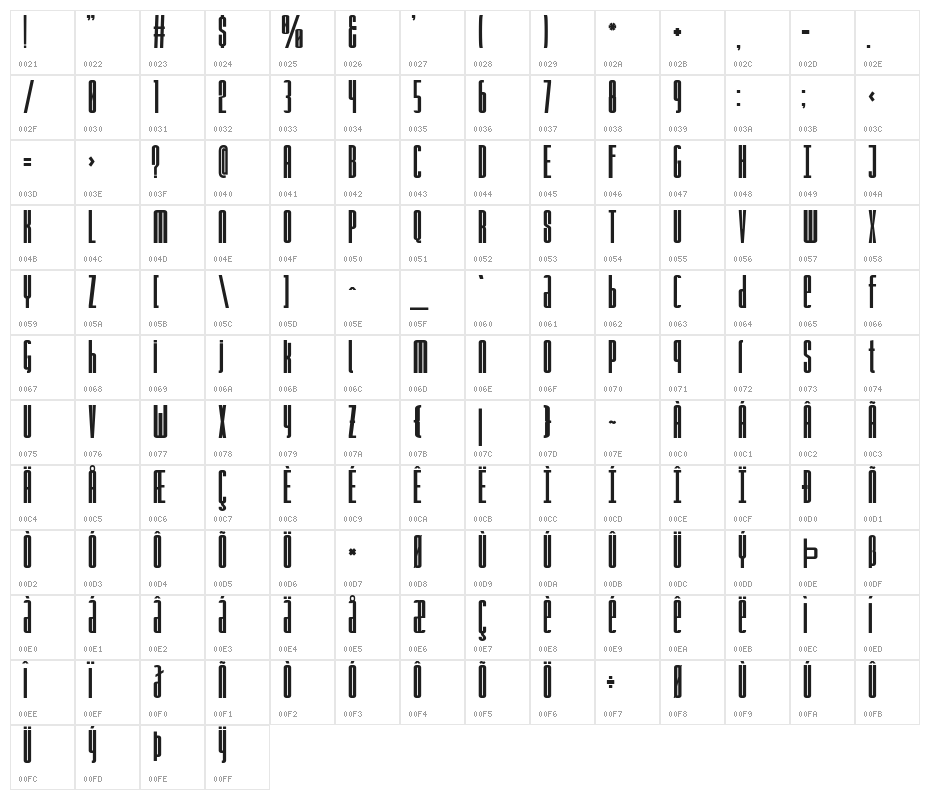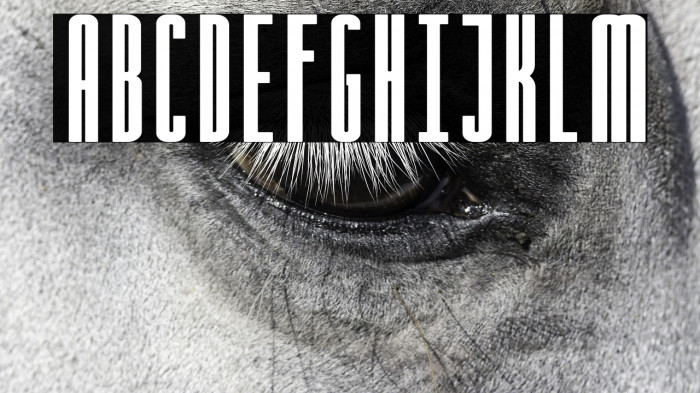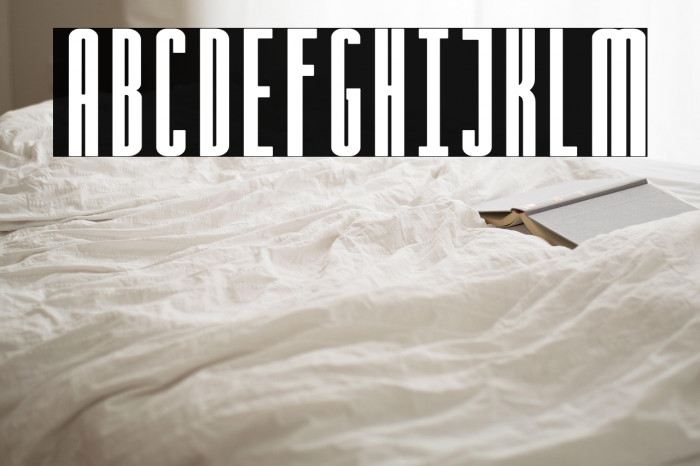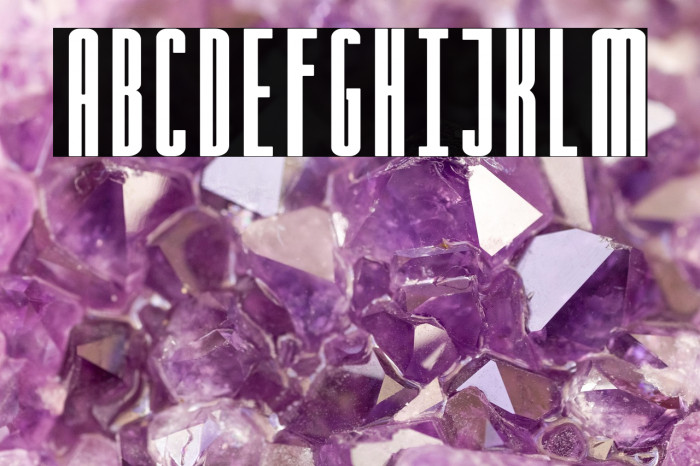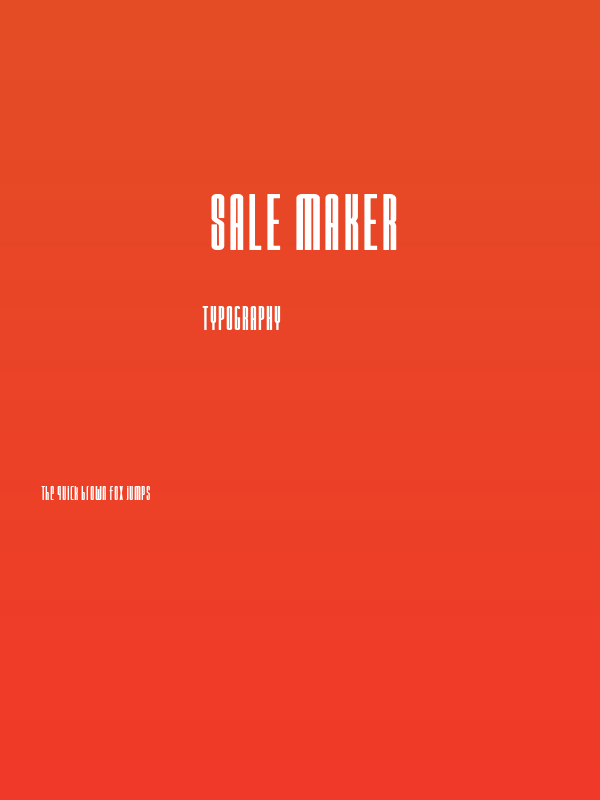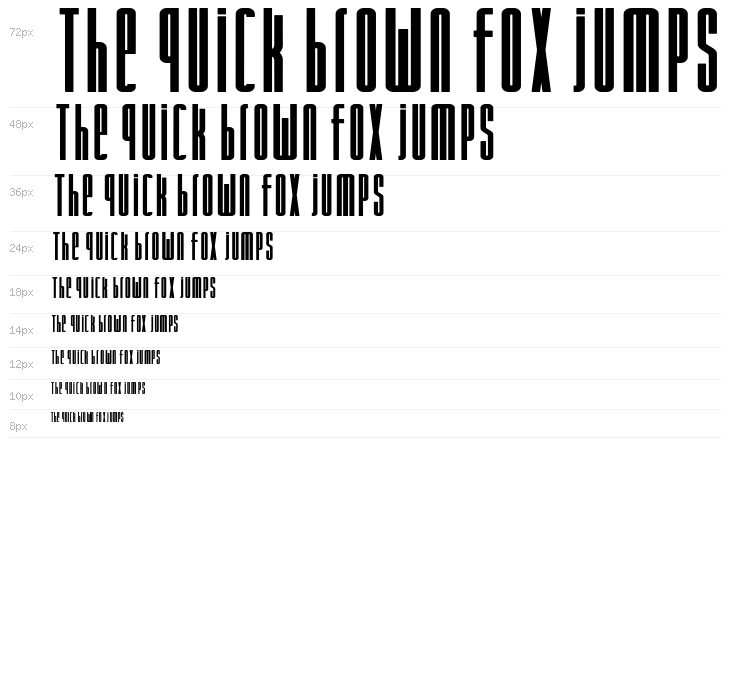
Sale Maker Font
Sale Maker Description
This font features a bold and condensed style, characterized by tall, narrow letters with a strong vertical emphasis. The uppercase and lowercase characters maintain a consistent height, creating a uniform appearance. The numbers and special characters are designed to match the overall aesthetic, with clean lines and minimal ornamentation. The font's design is modern and impactful, making it suitable for attention-grabbing headlines and titles. Its high contrast between thick and thin strokes adds to its striking visual appeal.
| Width | Condensed |
| Proposed Projects | Ideal for posters, advertisements, branding, and any project requiring a strong visual impact. |